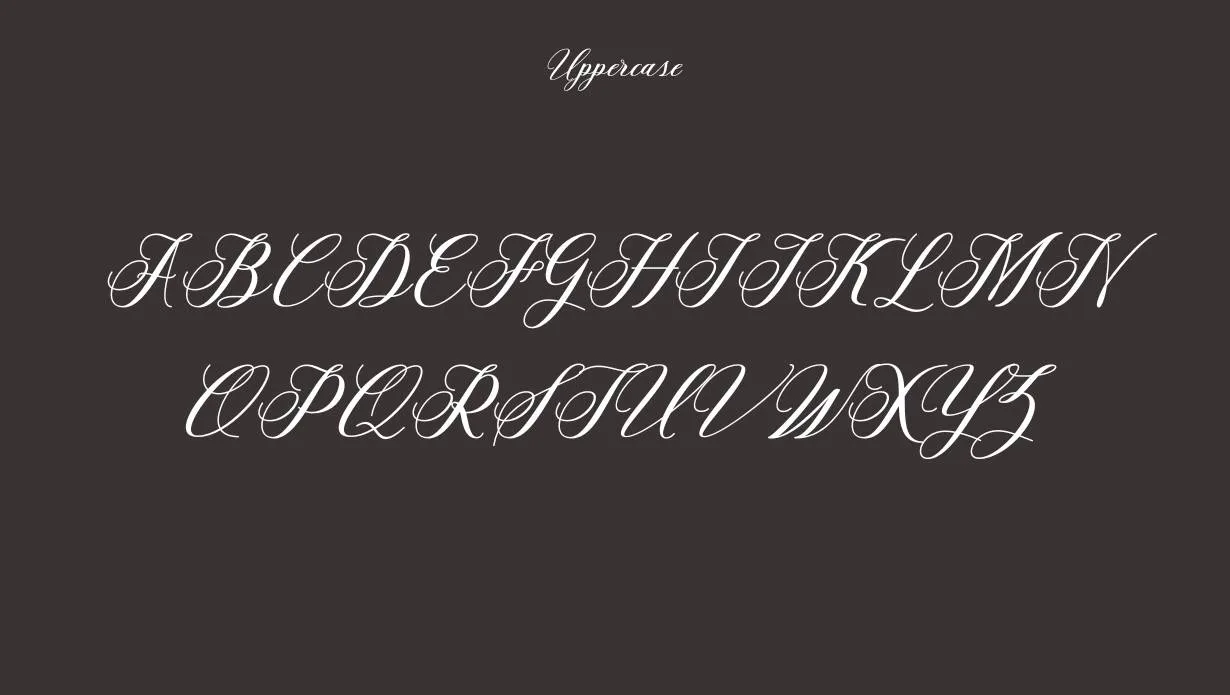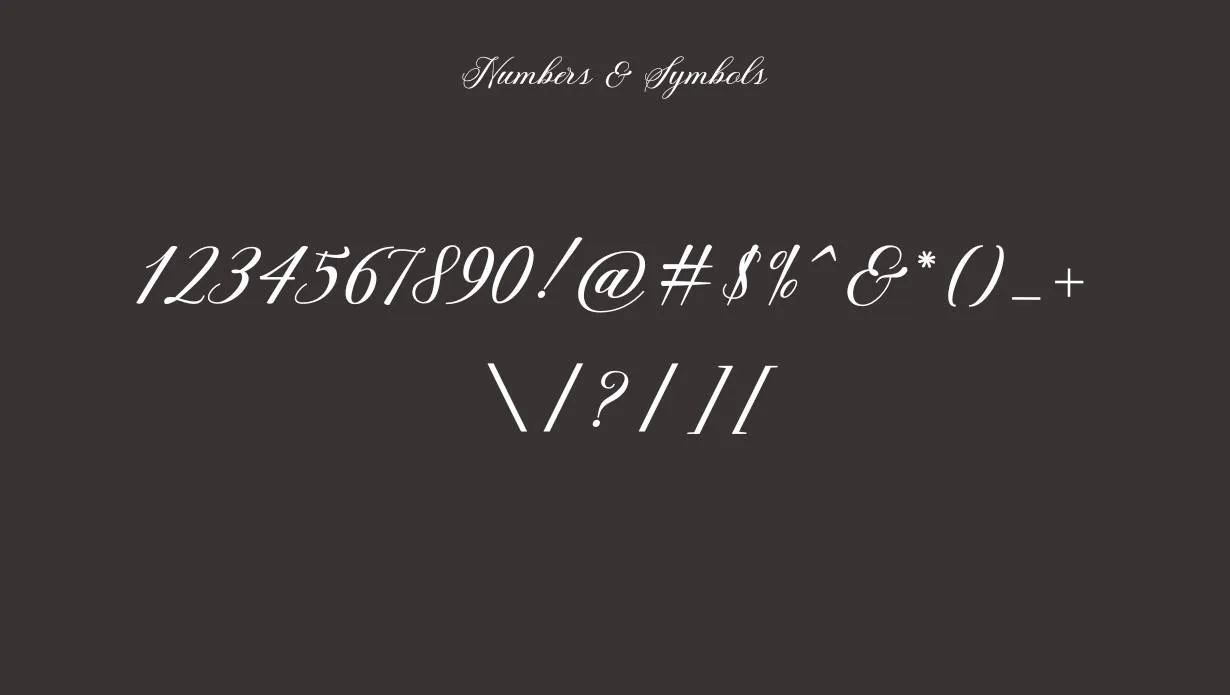
Milania Font belongs to the calligraphy font family that was designed by Brand Semut. It has a modern and casual calligraphy texture that is made with both TTF and OTF formats. It has beautiful swashes and 310 unique glyphs.
It is PUA encoded which means you can use all its glyphs and swashes without any ease. This typeface also includes ligatures, alternates, accents, uppercase, lowercase, numbers, etc.
To make the elegant and delicate text for your project, pair this typeface with mosk font and add a stunning touch.